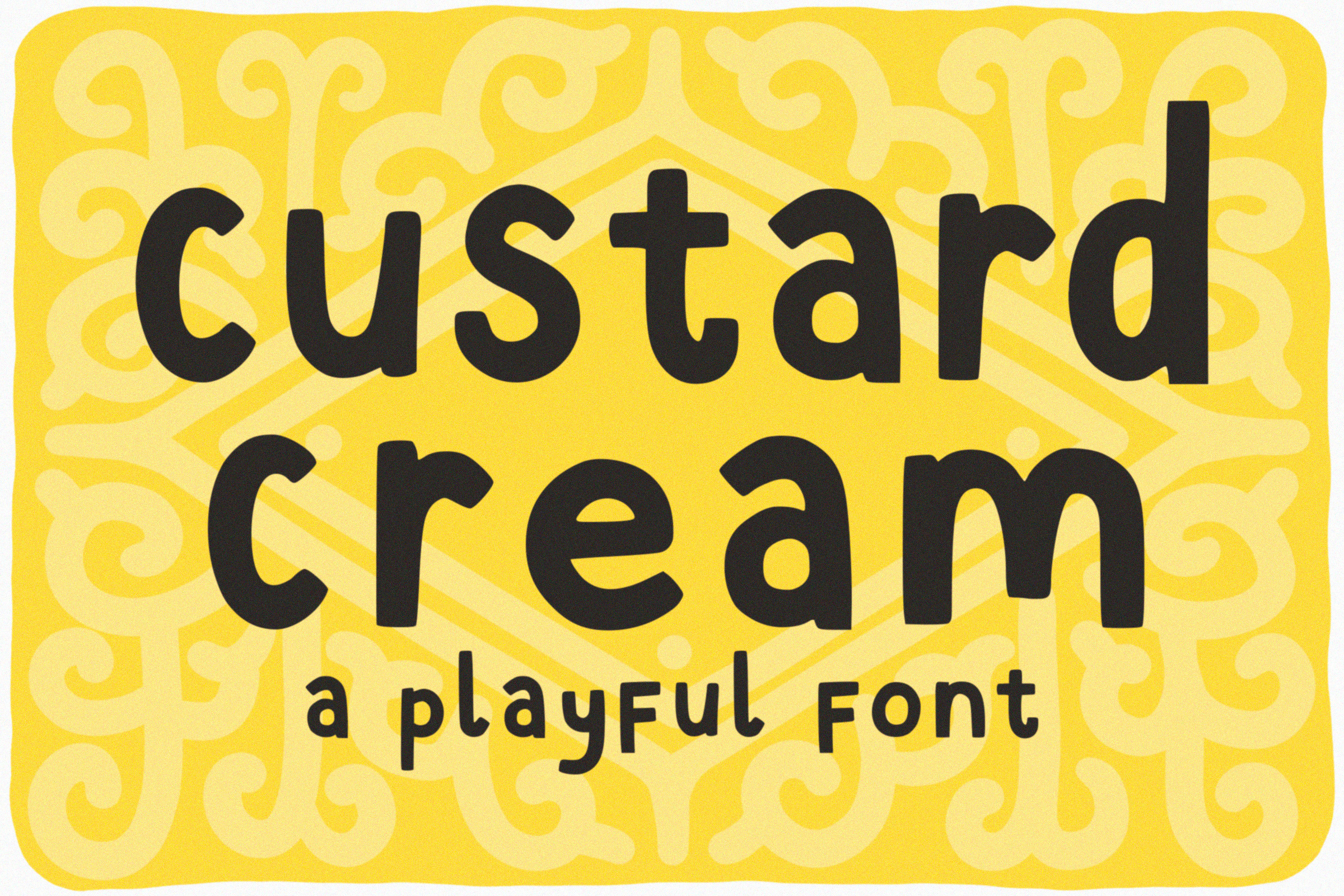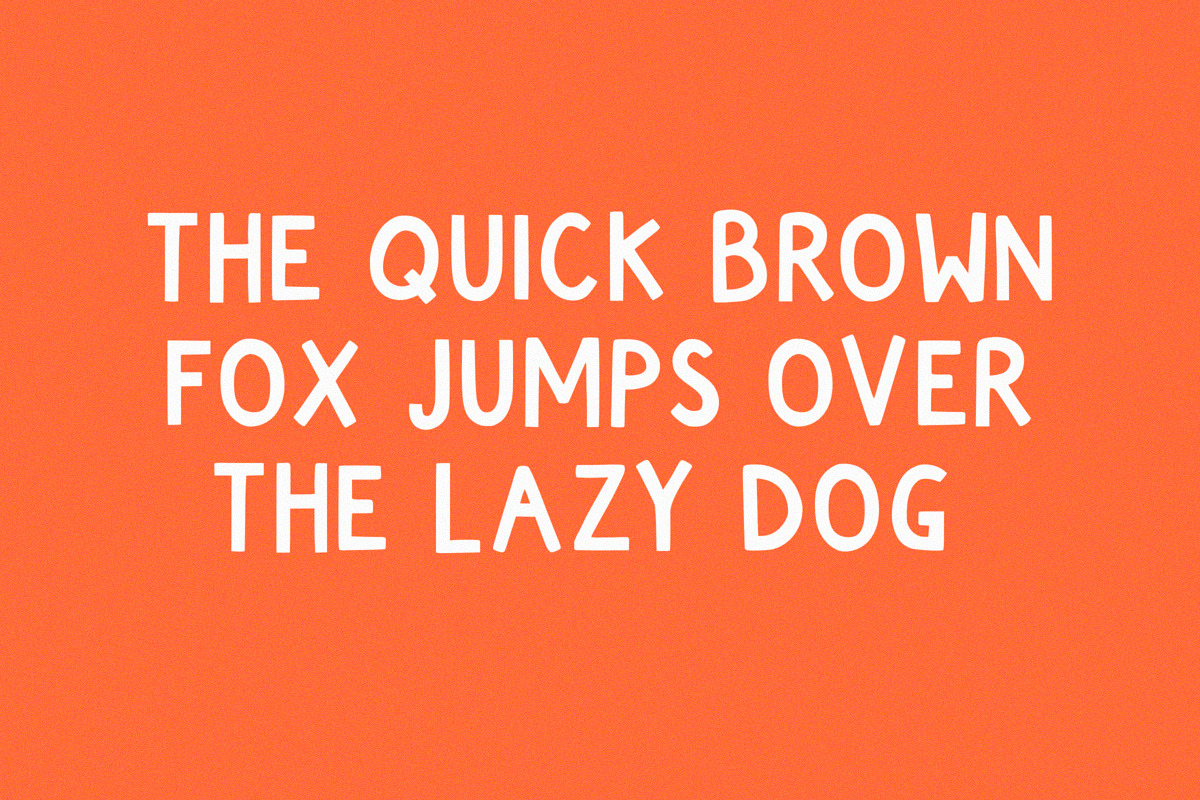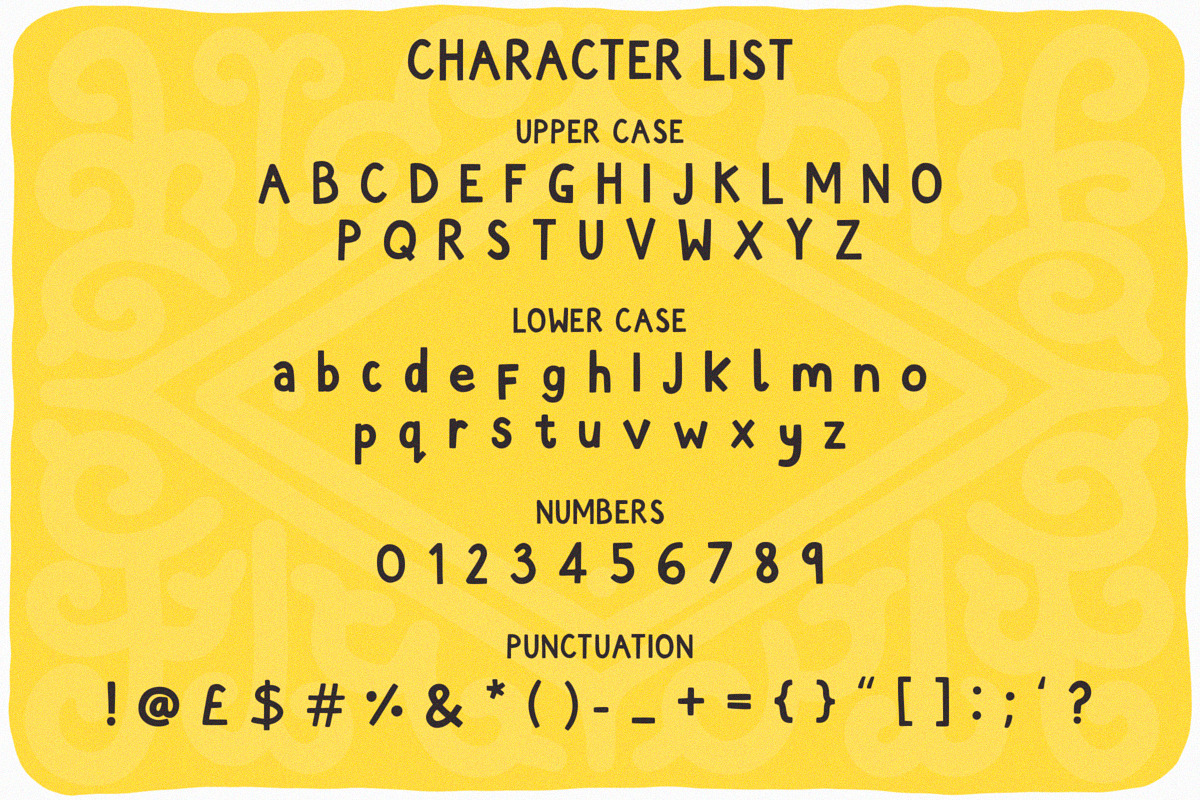
Custard Cream - A Playful Font
Custard Cream is a playful child-like typeface perfect for any fun quirky design work! This font can be used for anything such as T-Shirt designs, phone cases, greeting cards, invitations, mugs and so much more! Get creative!